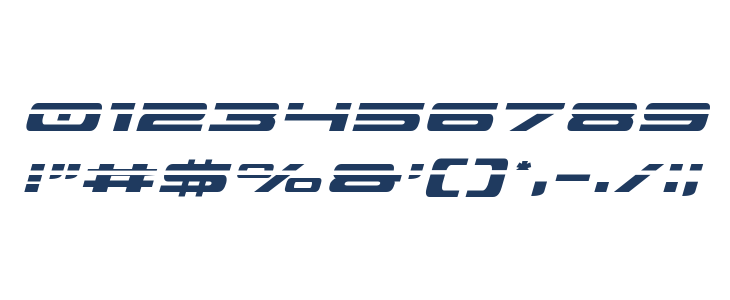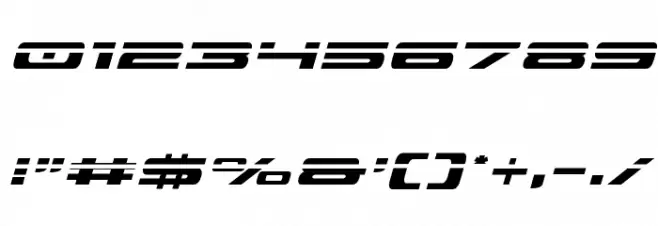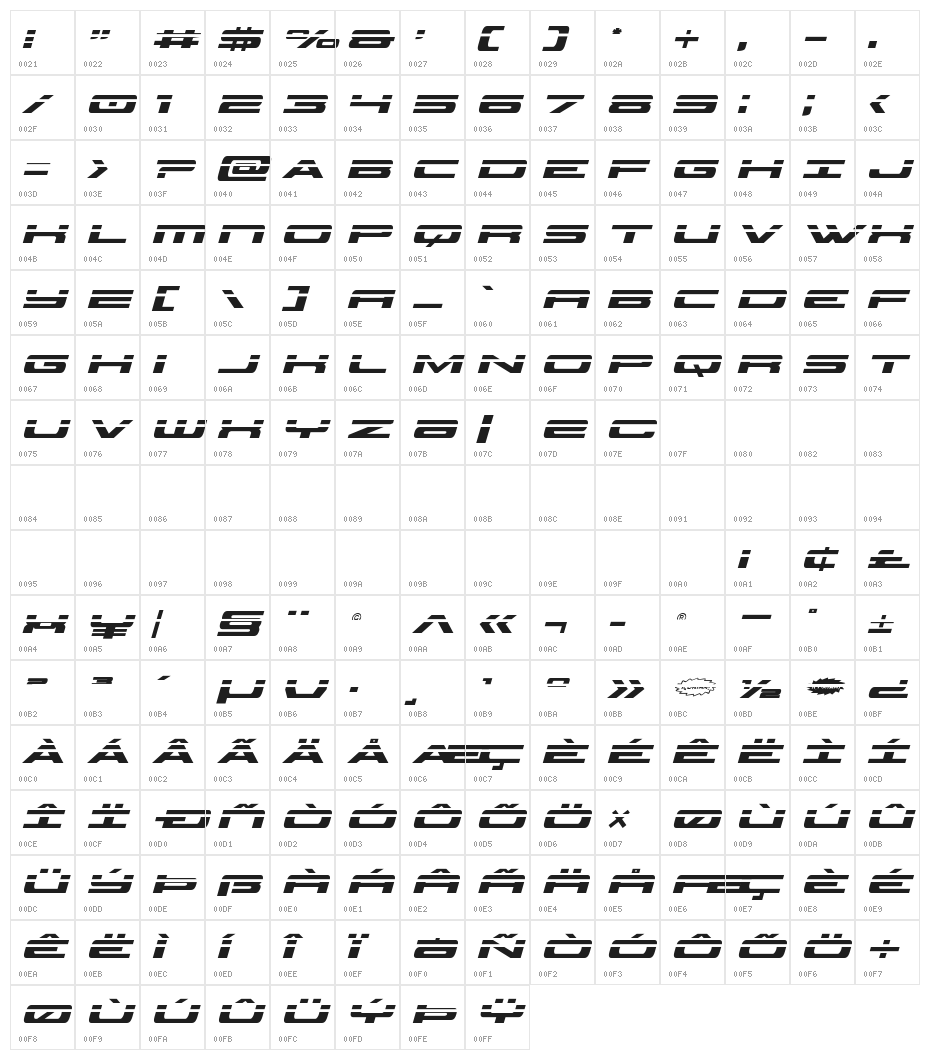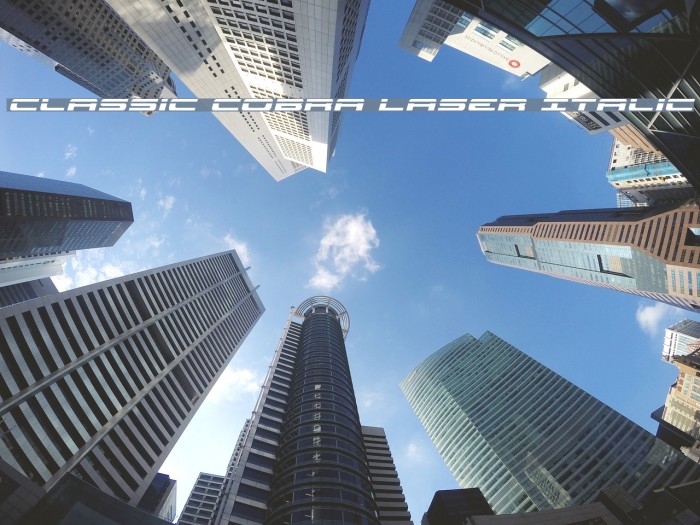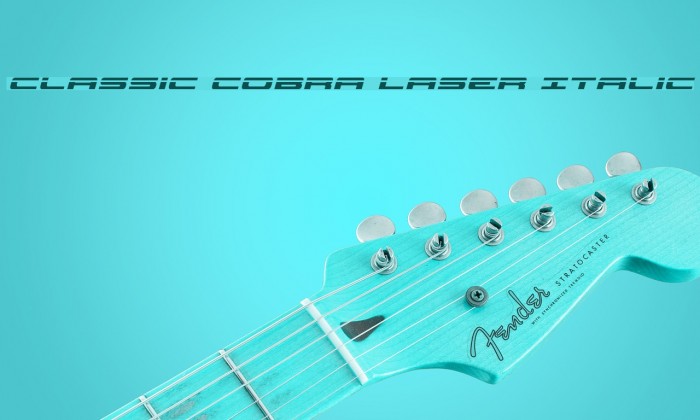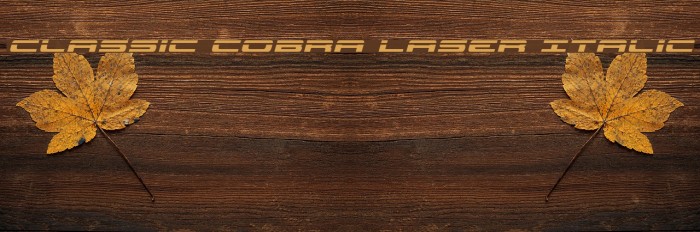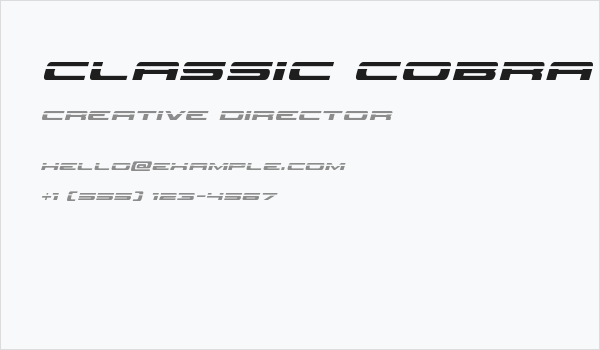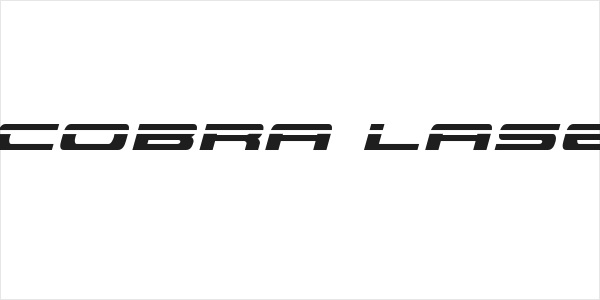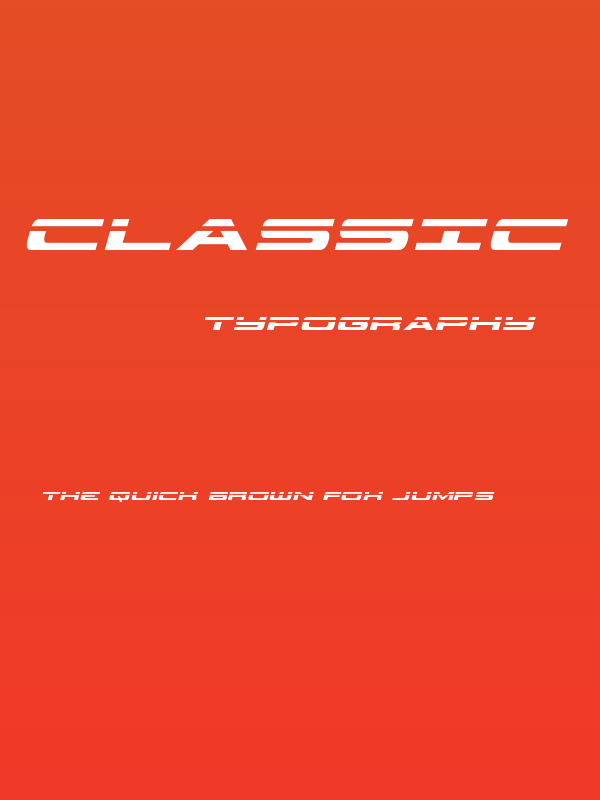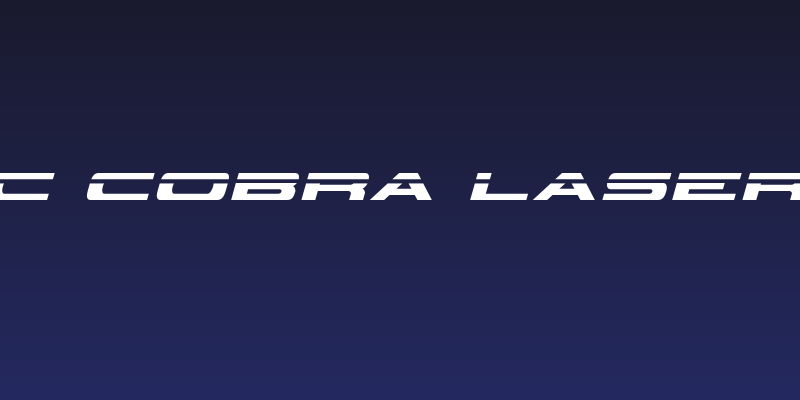
Classic Cobra Laser Italic Font
Classic Cobra Laser Italic Description
This font features a sleek, futuristic design with a distinct italic slant, giving it a dynamic and forward-moving appearance. The characters are bold and angular, with sharp edges and a geometric structure that conveys a sense of speed and modernity. The uppercase and lowercase letters maintain a consistent style, with the uppercase being slightly more pronounced. The numbers and special characters are designed to match the overall aesthetic, ensuring uniformity across all glyphs. This font is ideal for projects that require a modern, tech-inspired look.
| Proposed Projects | Ideal for technology branding, sci-fi posters, video game titles, and modern advertising. |